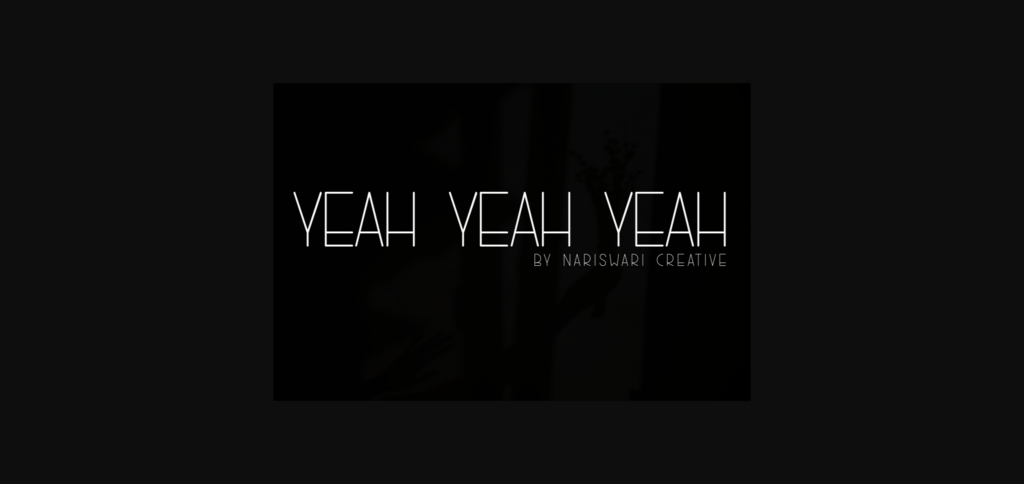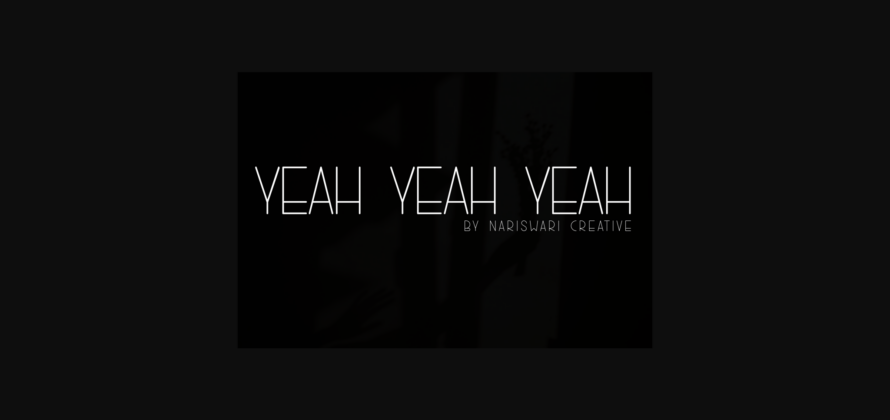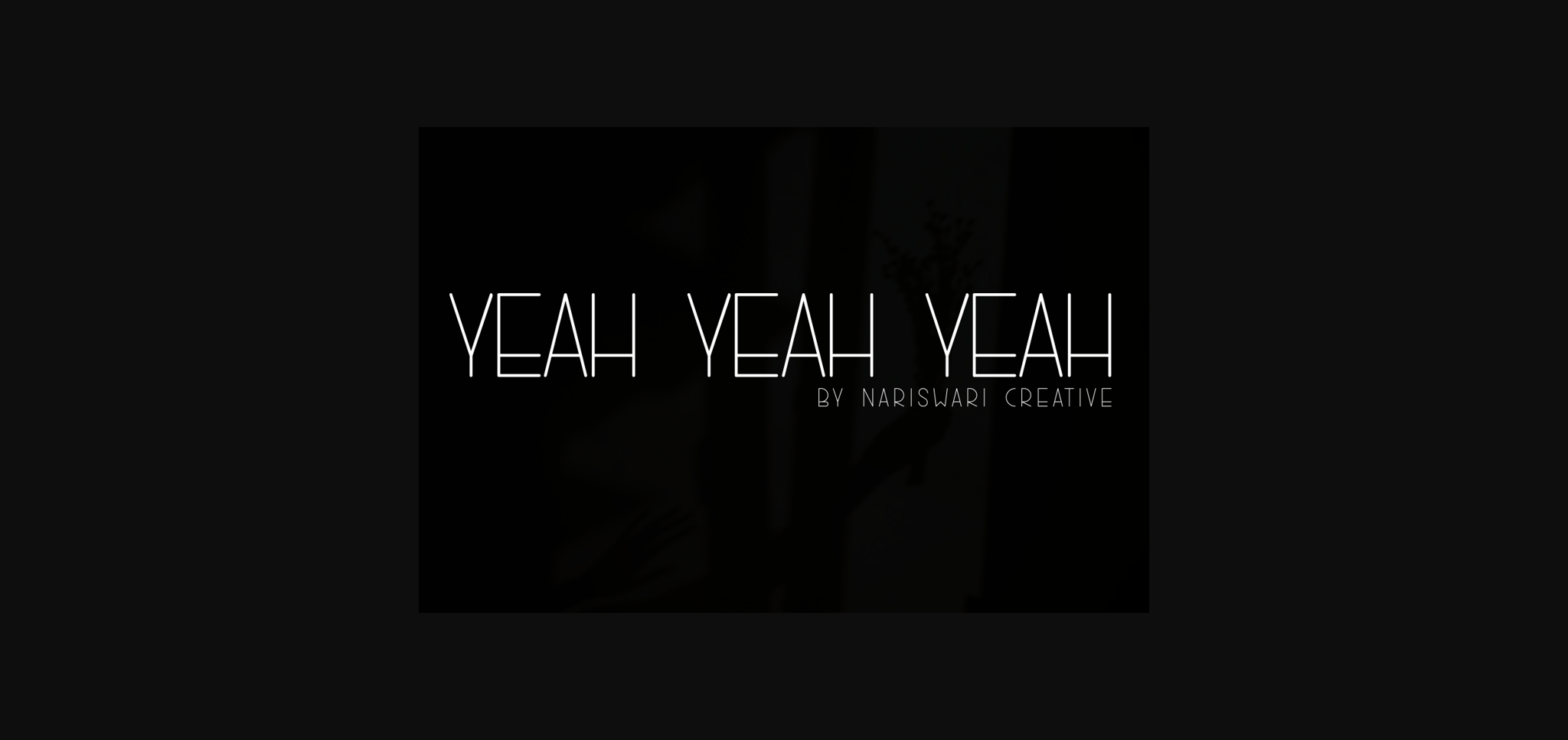
HomeSans Serif FontsYeah, Yeah, Yeah Font Sans Serif Fonts Yeah, Yeah, Yeah Font FacebookXPinterestWhatsApp 1 of 5 ... Yeah, Yeah, Yeah Font Poster 2... Yeah, Yeah, Yeah Font Poster 3... Yeah, Yeah, Yeah Font Poster 4... Yeah, Yeah, Yeah Font Poster 5... About Yeah, Yeah, Yeah Font Yeah, Yeah, Yeah is a minimal and neat sans serif font. It can easily be matched to an incredibly large set of projects, so add it to your creative ideas and notice how it makes them stand out! DOWNLOAD NOW People also explored Gorgeous Font Bella Donna / Elegant Signature Rogfus Sejatty Font Purple Gildan 5000 Girls T-Shirt Mockup Milkdrink Font FCK Trasher Font Remedios Font Affiliate Mastery Font Dailytrust Script Font 458 0 TagsYeahYeah Font Previous articleMeteor FontNext articleValkrie Font LEAVE A REPLY Cancel reply Comment: Please enter your comment! Name:* Please enter your name here Email:* You have entered an incorrect email address! Please enter your email address here Website: Save my name, email, and website in this browser for the next time I comment. Personal Use Free Dacquoise Personal Use Free Read more about this font Shawaki Personal Use Free Read more about this font Dealerplate California Personal Use Free Read more about this font Black Friday Personal Use Free Read more about this font BLOG Free Fonts Risk: Why Free Fonts Can Be Dangerous for Designers Free Fonts Risk: Why Free Fonts Can Be Dangerous for Designers Using free fonts is a common practice in web and graphic design. However, the... 5 Fonts That Will Dominate Design Trends in 2026 Where to Buy American Fonts Online in 2024 How to Install and Use Fonts on Windows, macOS, and Web Projects